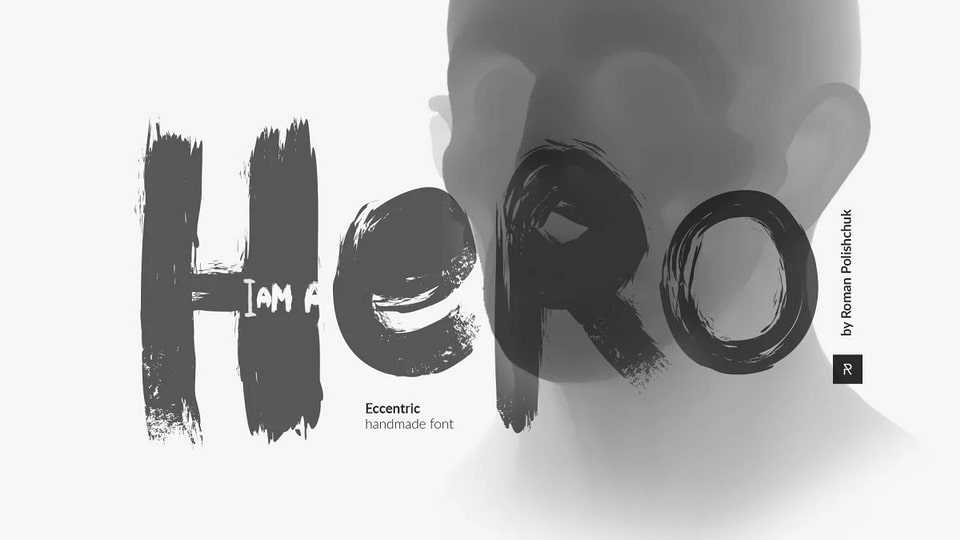
Download Hero font, a naturalistic, handwritten typeface. It features high detail and beautiful brush strokes. Support for ligatures allows you to create a truly unique typography that resembles lettering.
Designer: Roman Polishchuk